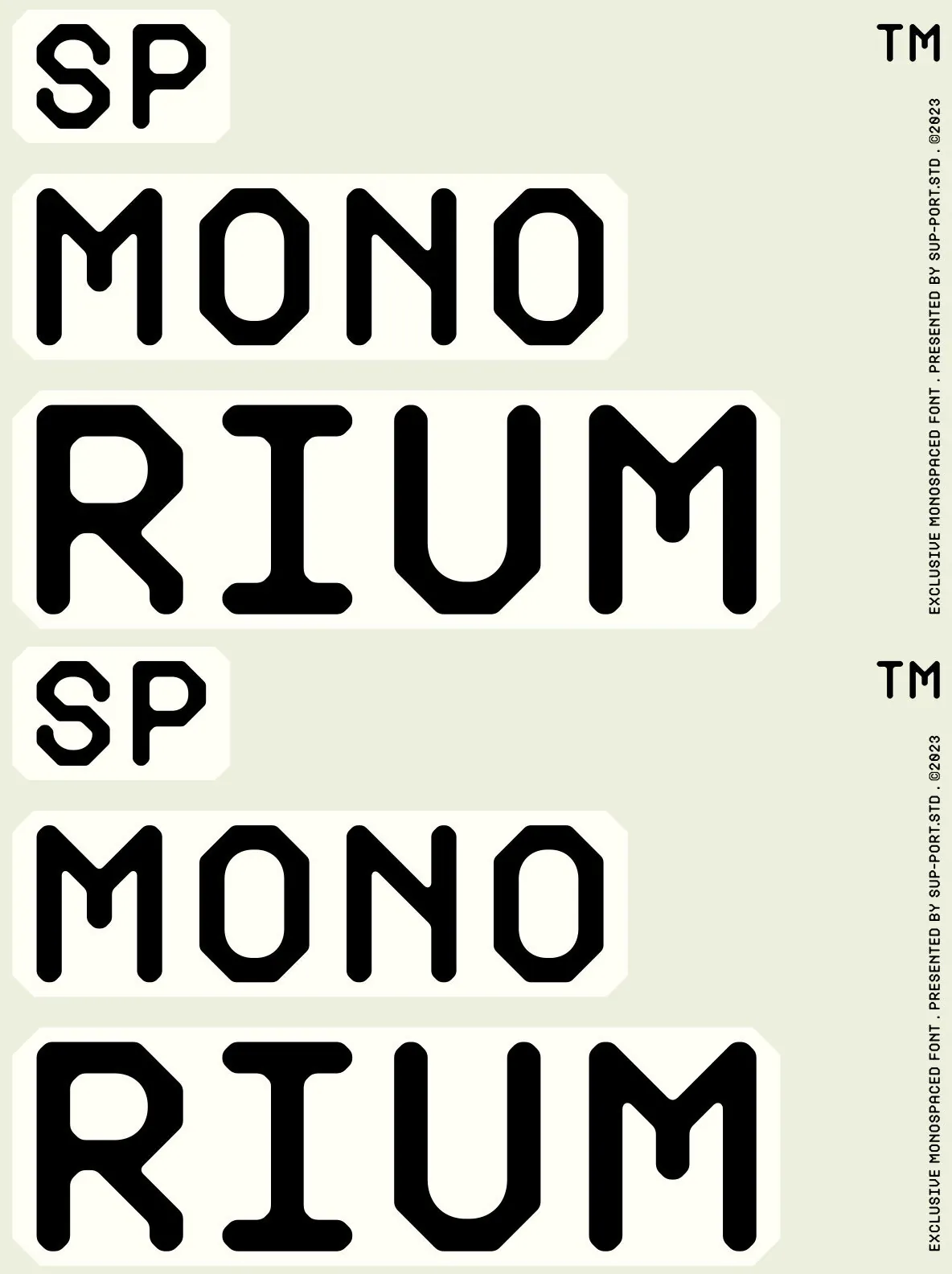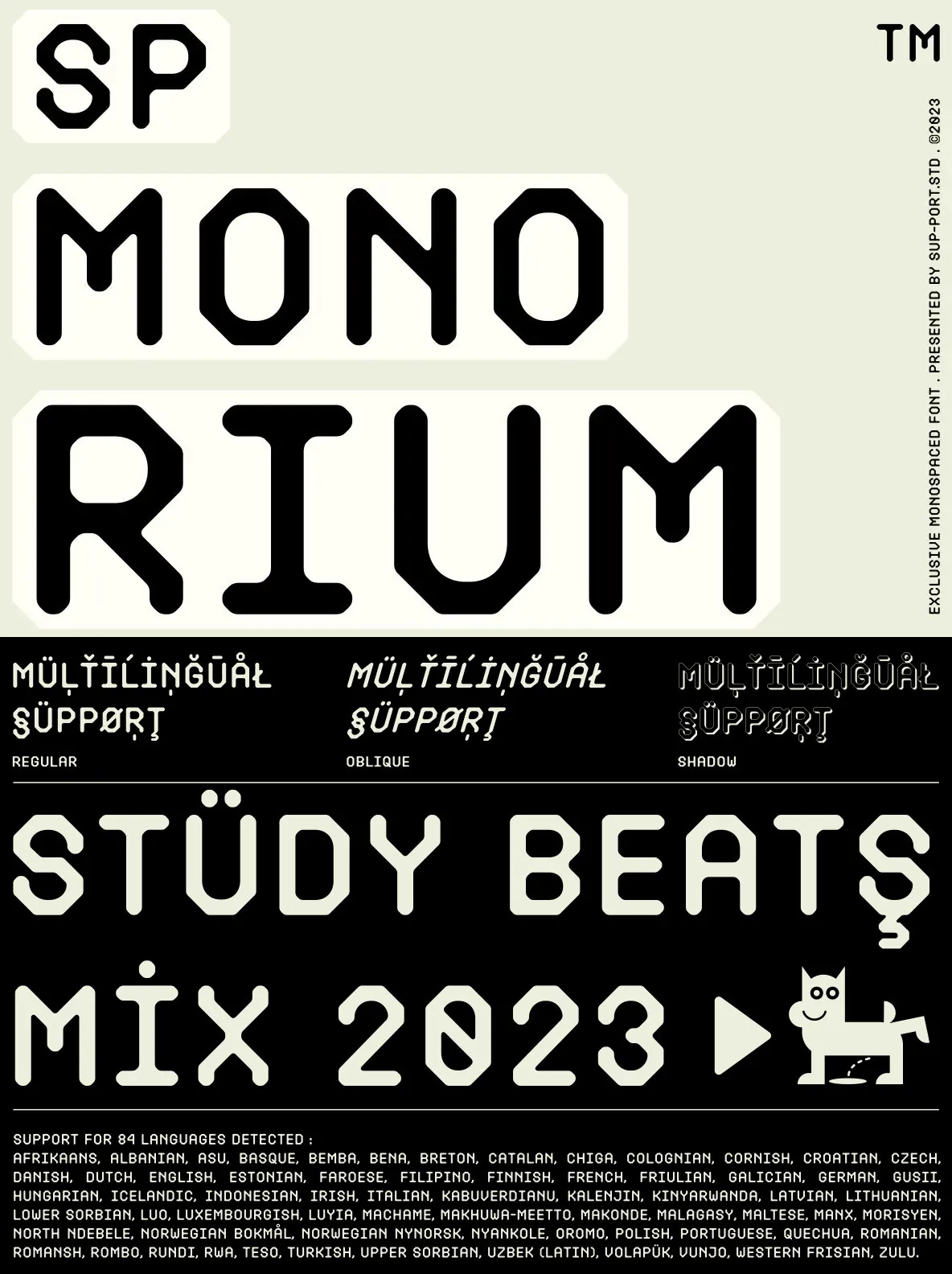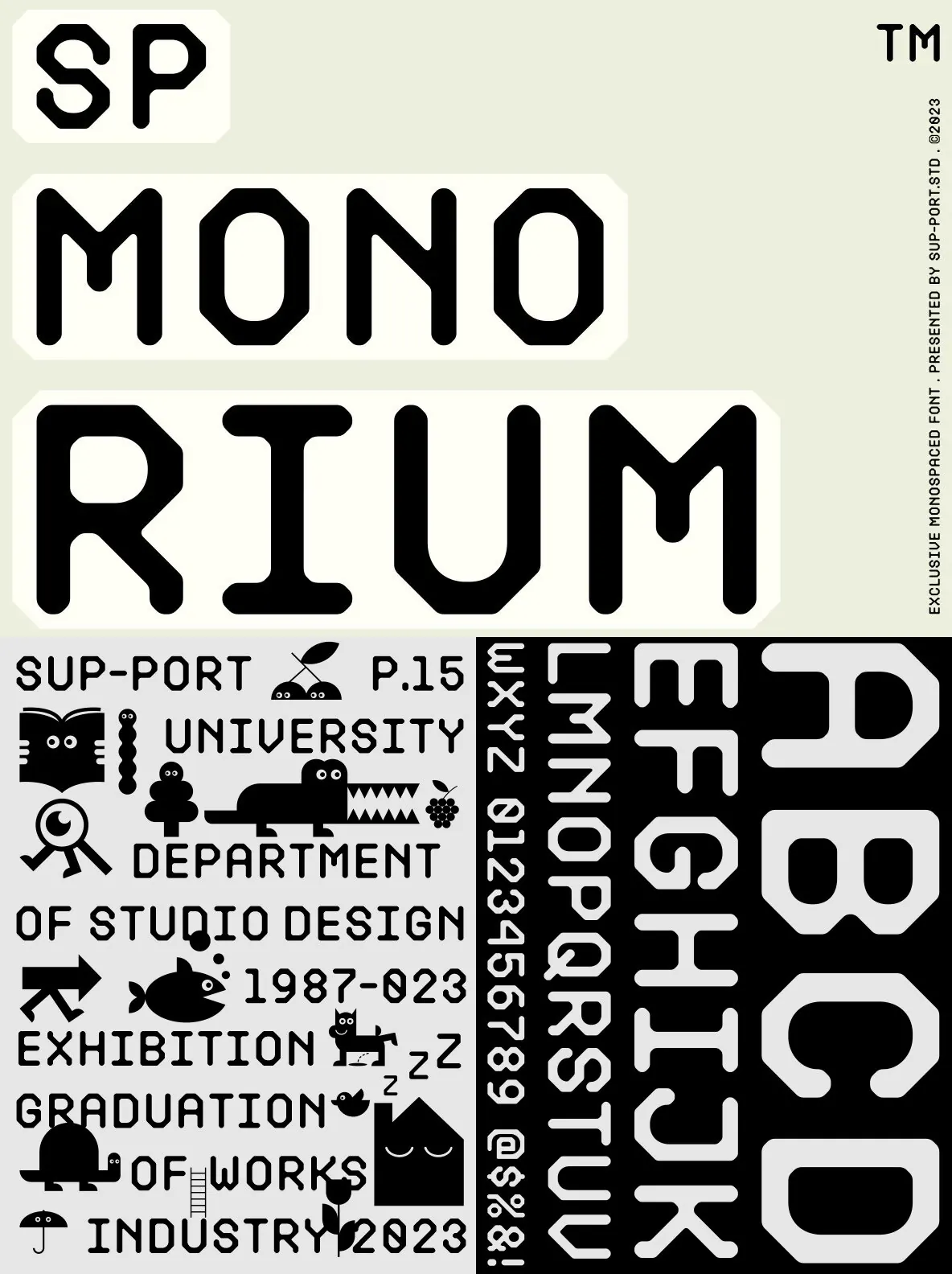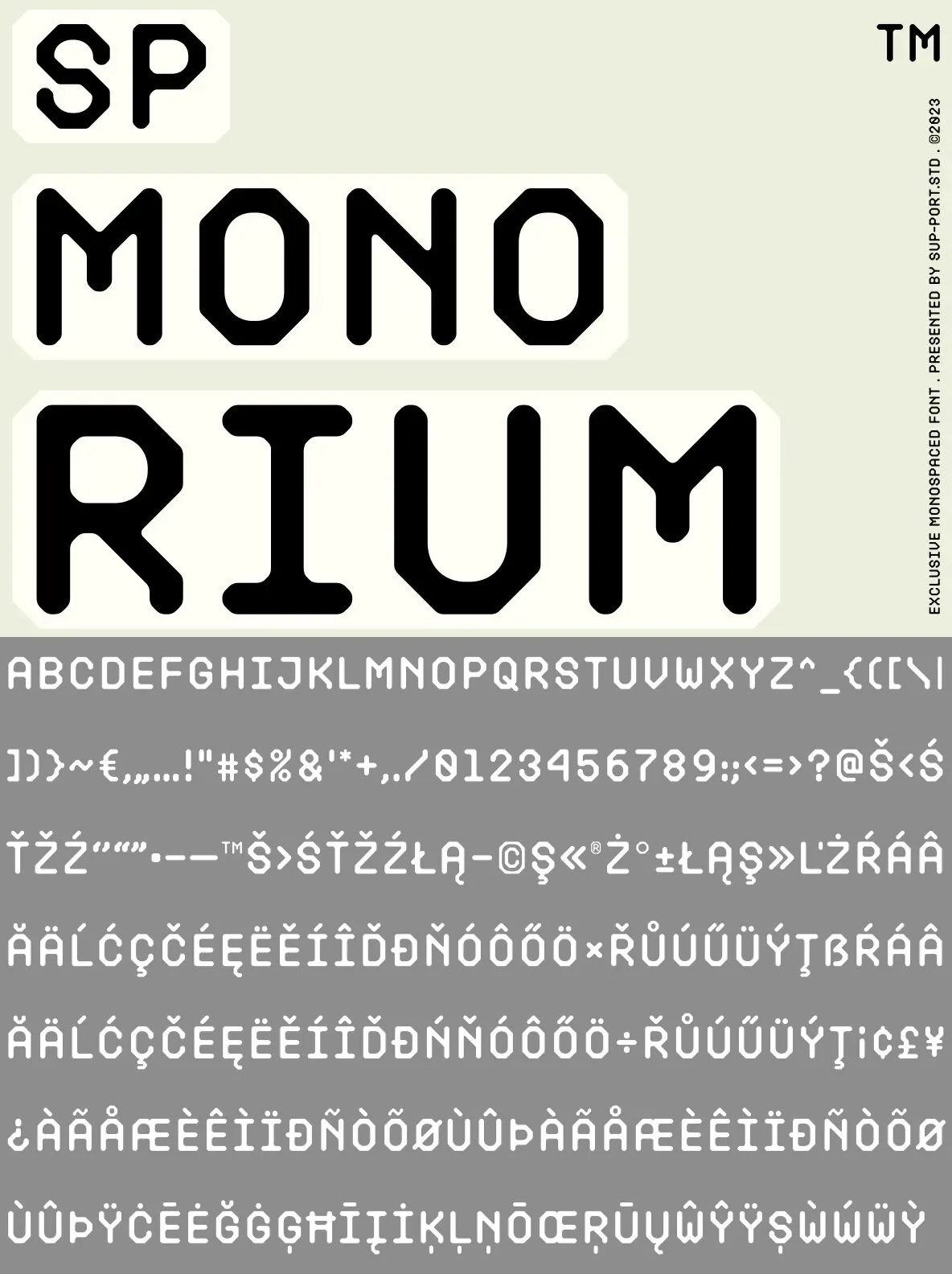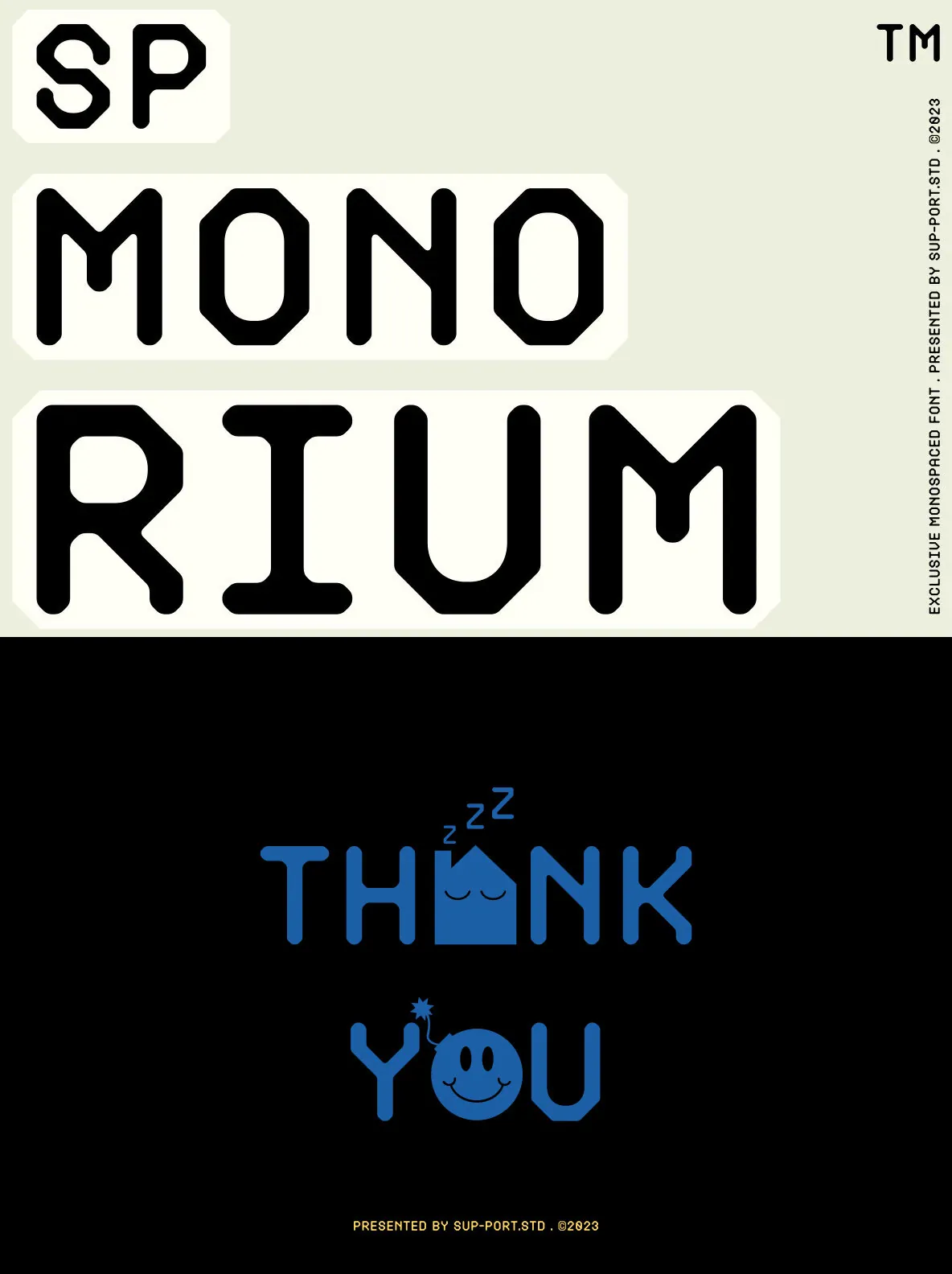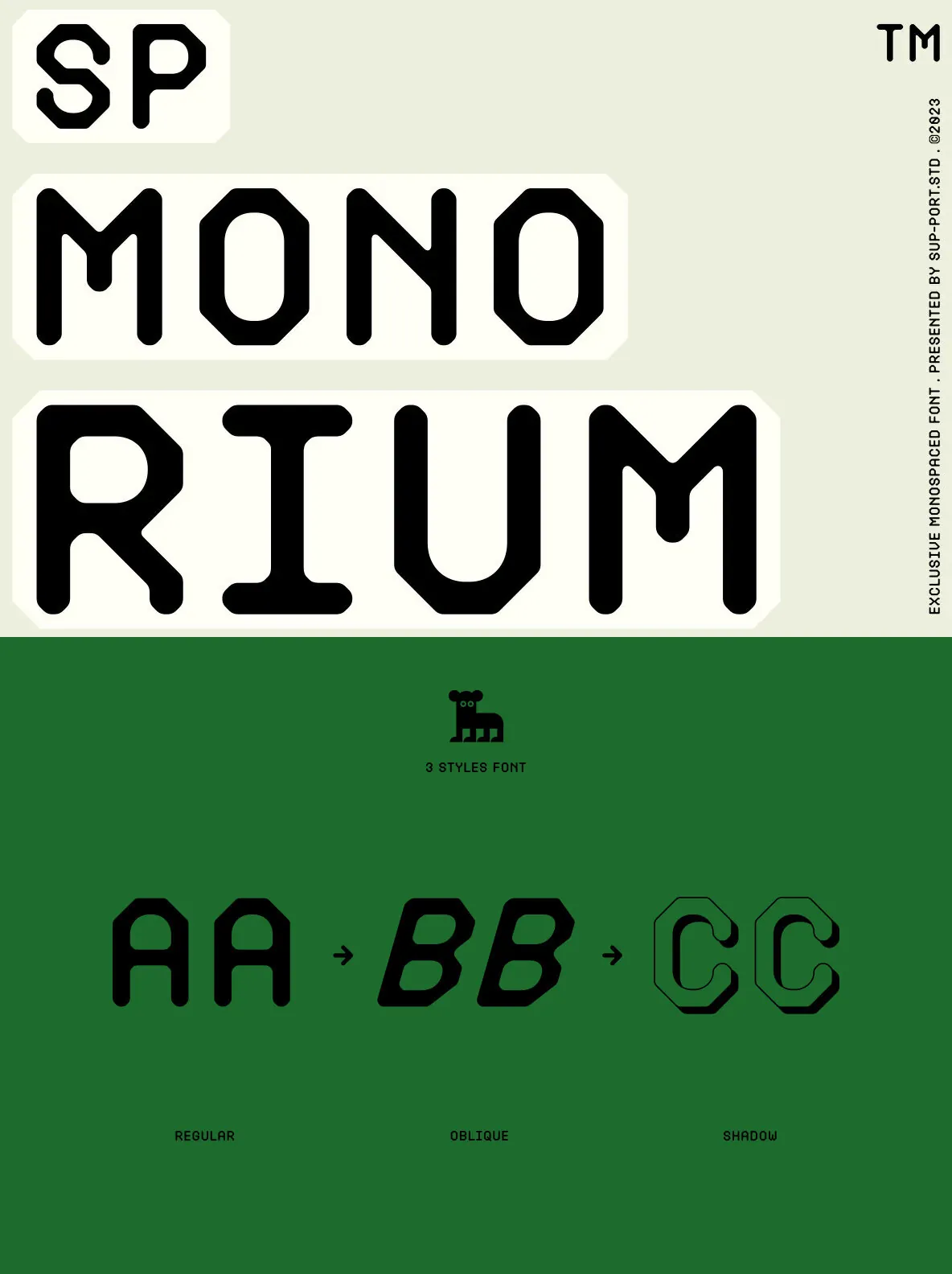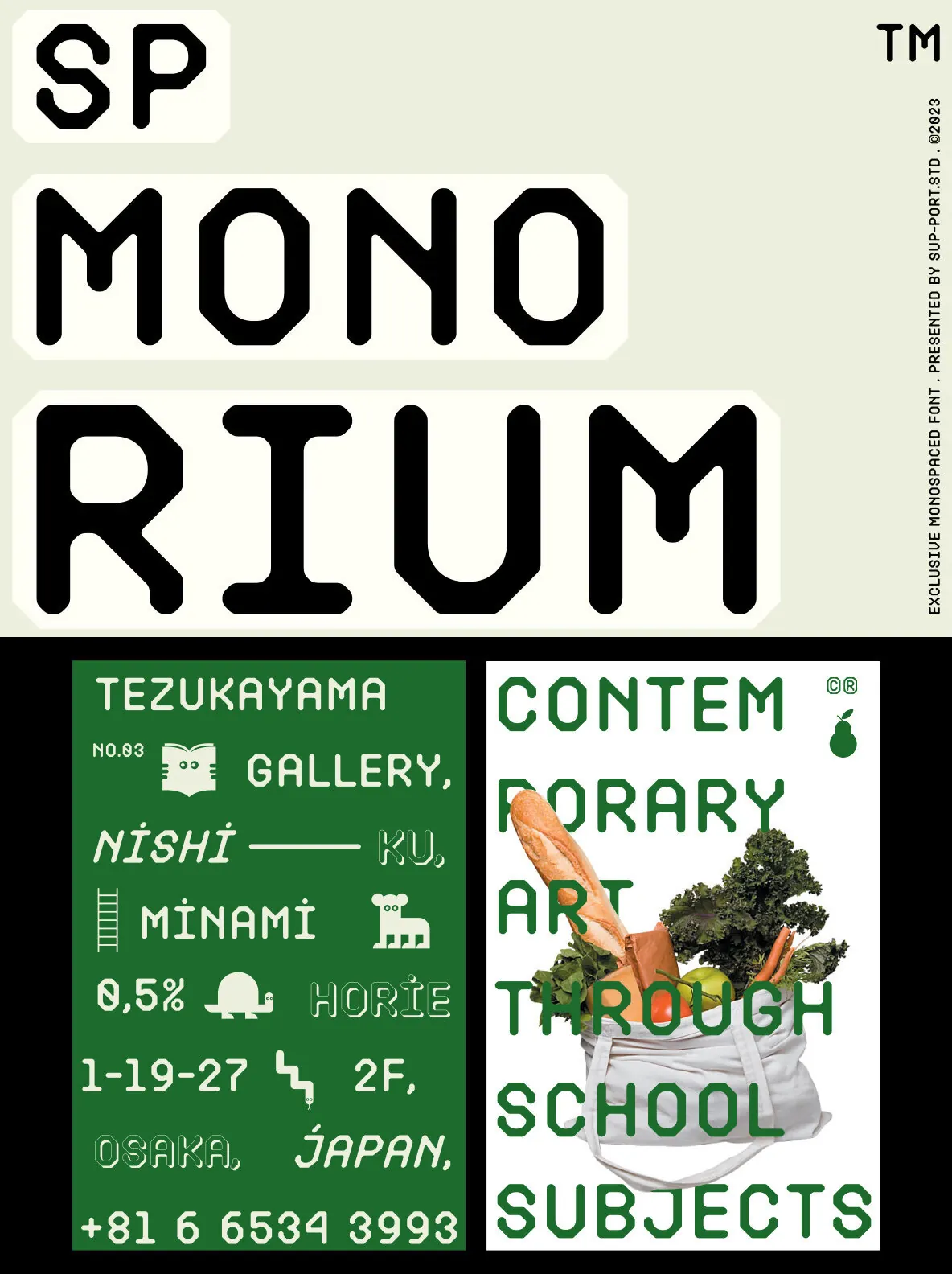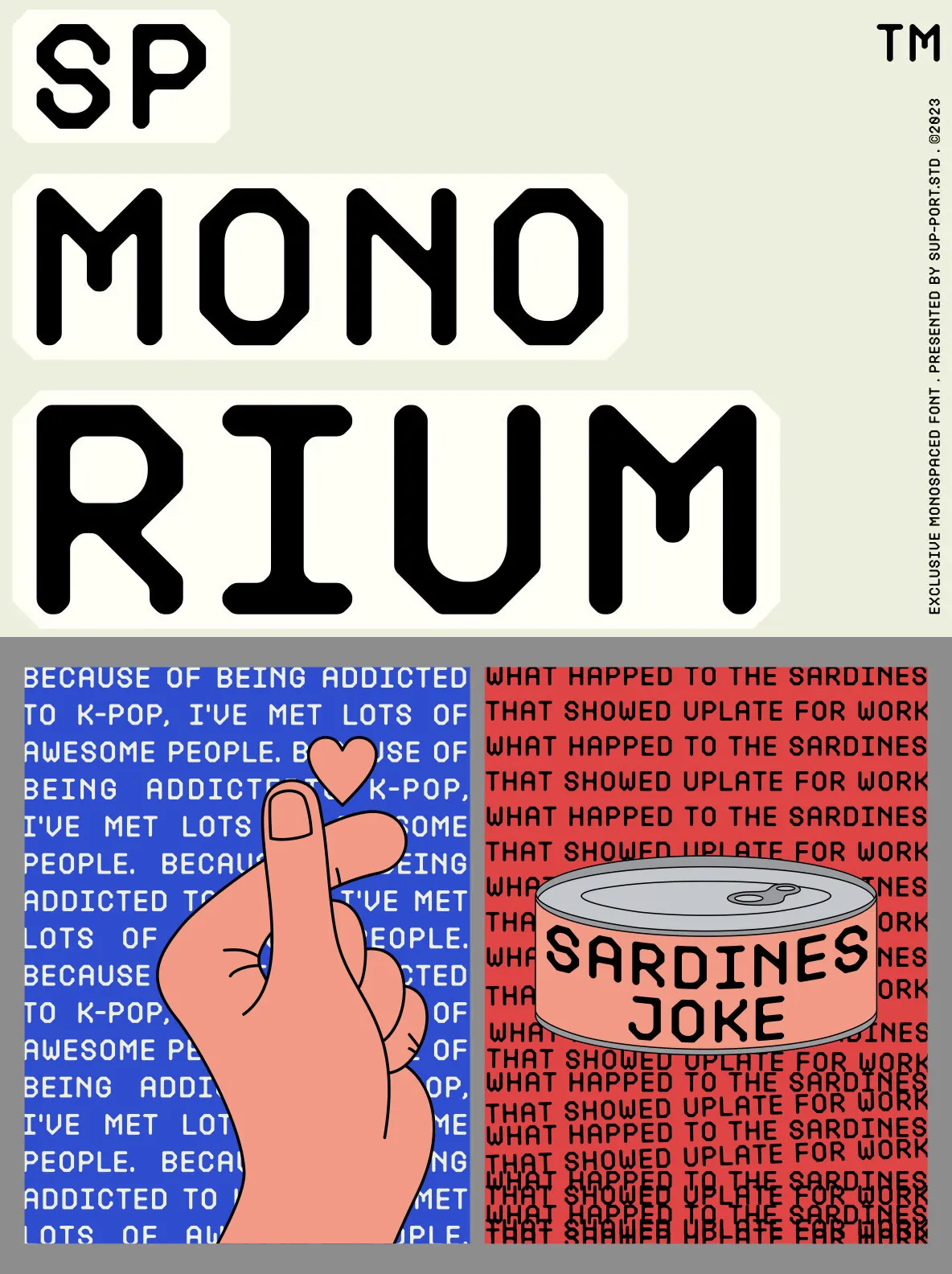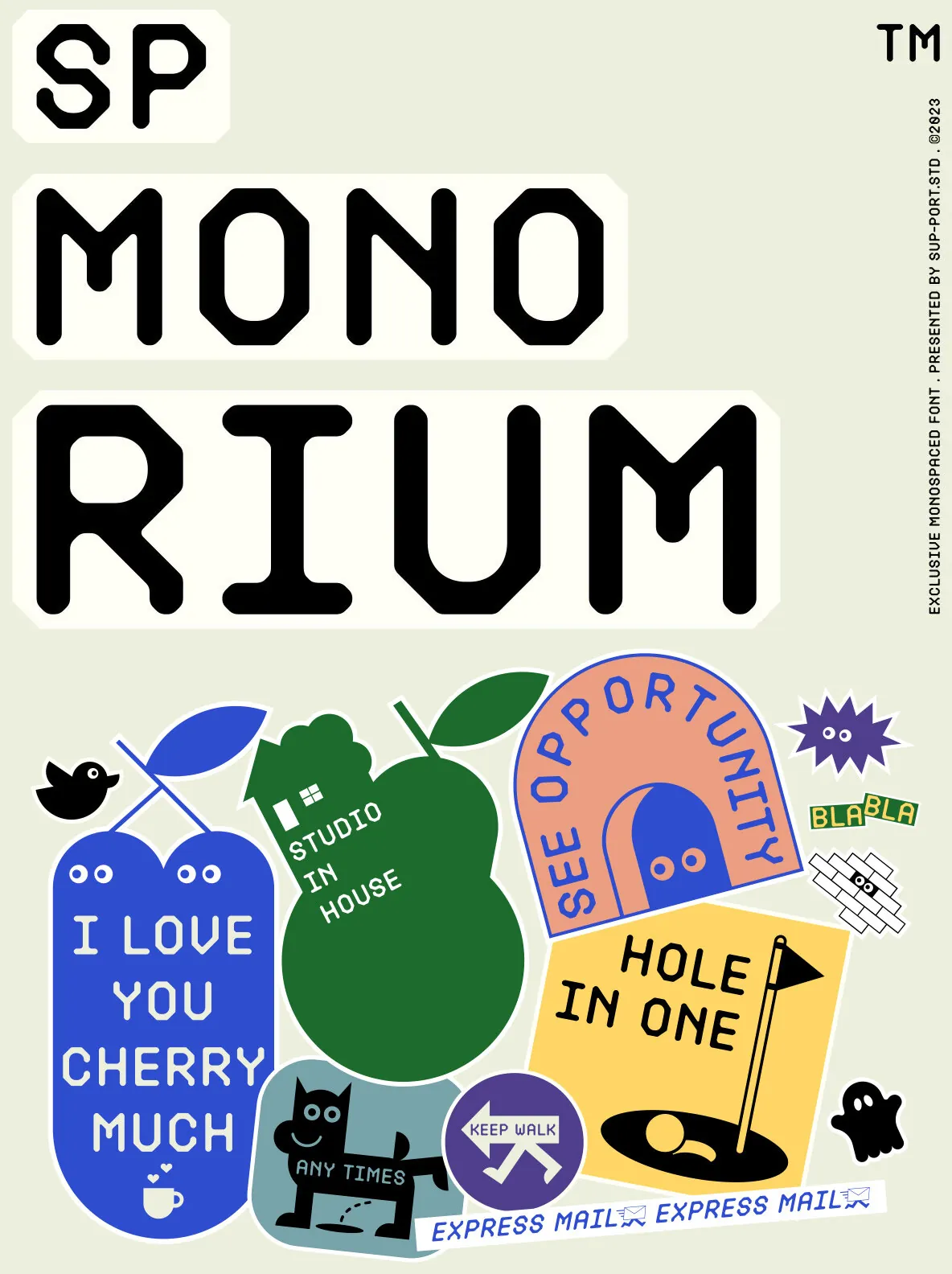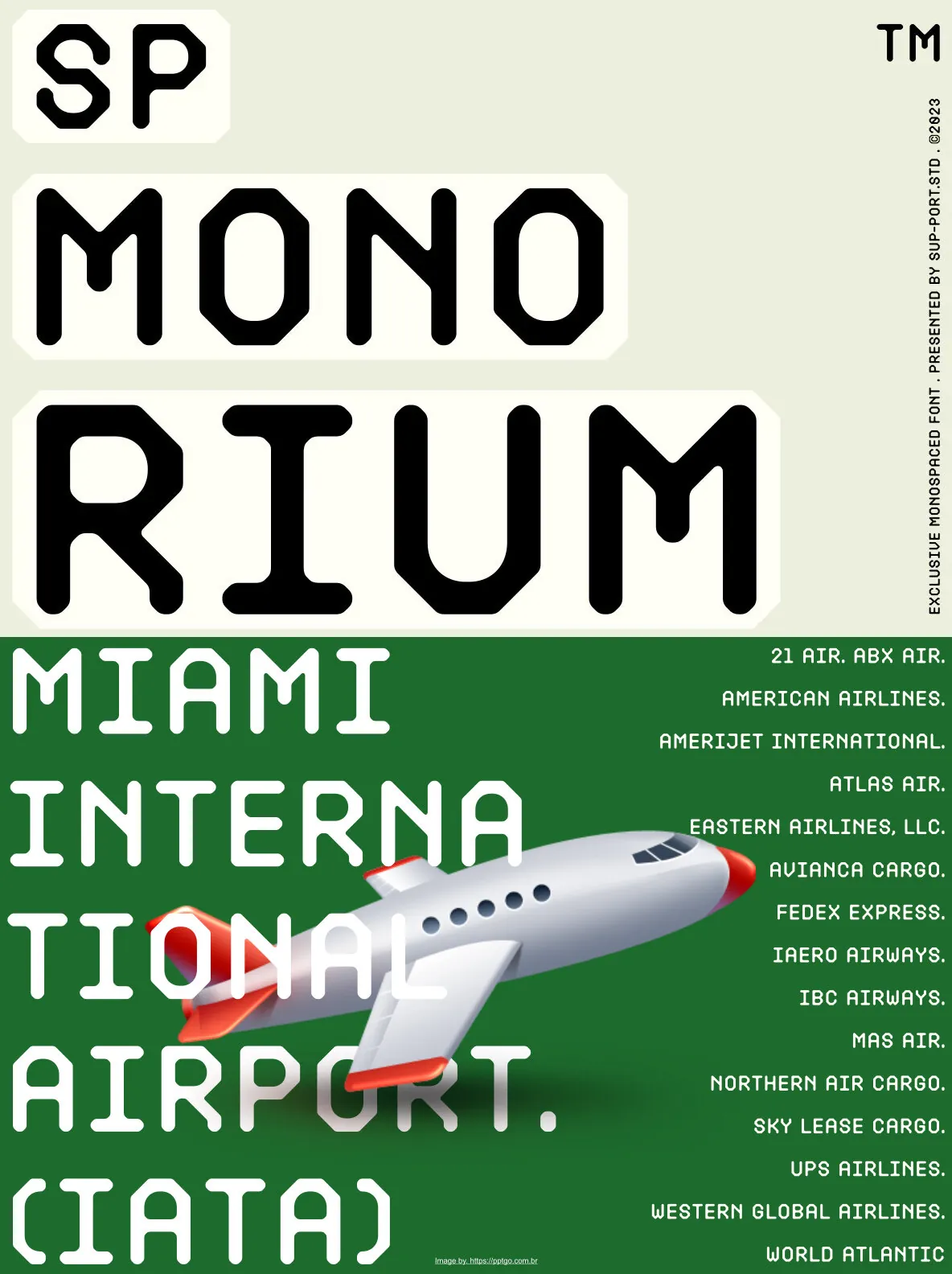
SP Monorium Font
SP Monorium: Modular Mono with Street Edge
A set of four distinct monospace modular fonts—Regular, Slant, Shadow, and Dingbat—designed by Sup-Port Studio with contemporary aesthetics in mind. The collection draws from street culture, signage, cinema, and current design trends, giving it a confident voice for modern visual systems.
SP Monorium includes OpenType support for typographic precision, including ligatures and ordinal forms. Comprehensive multi-lingual support broadens its reach, while currency symbols, numerals, punctuation marks, and arrows add practical range for day-to-day layout and identity work.
Use it across graphic design, logos, t-shirt graphics, print media, business cards, branding materials, and nature photography. Its calibrated modular construction keeps spacing consistent and supports effective combinations across applications.
Four style variations: Regular, Slant, Shadow, Dingbat
Monospace and modular design for consistency
OpenType support including ligatures and ordinal characters
Extensive multi-lingual character set
Comprehensive set of numerals, punctuation, currency symbols, and arrows